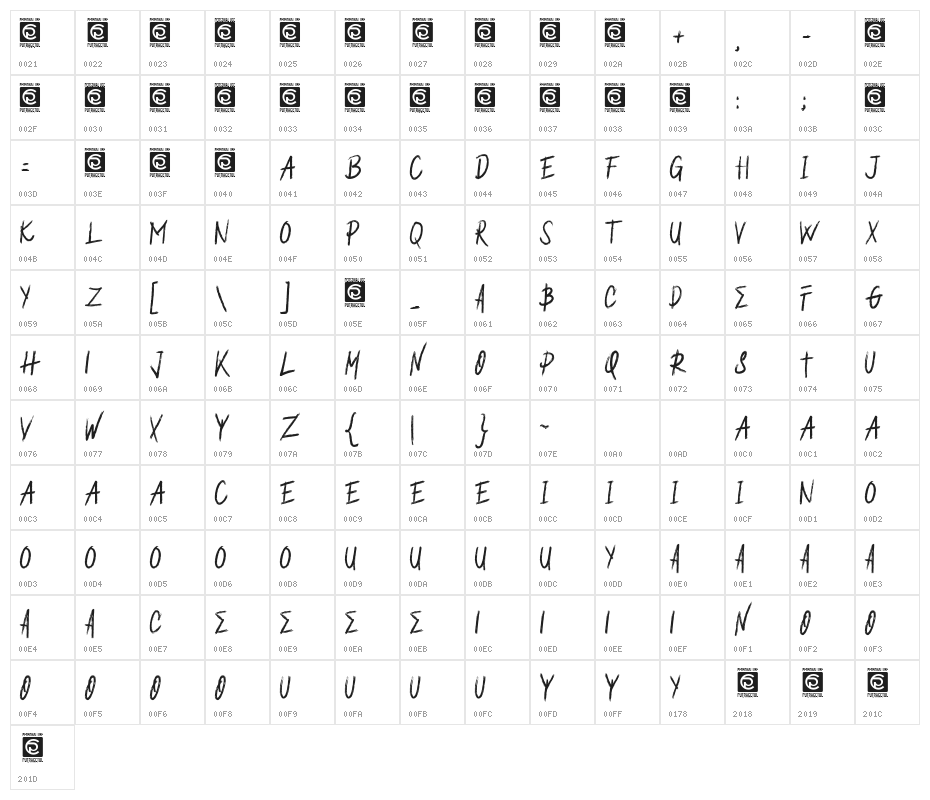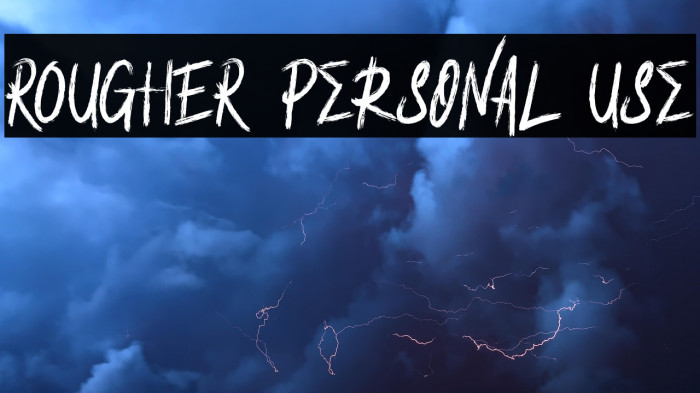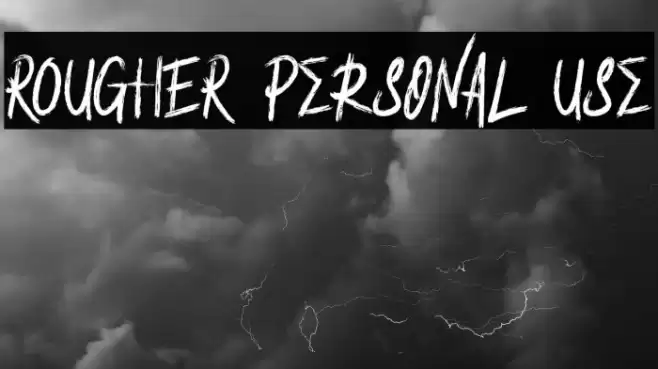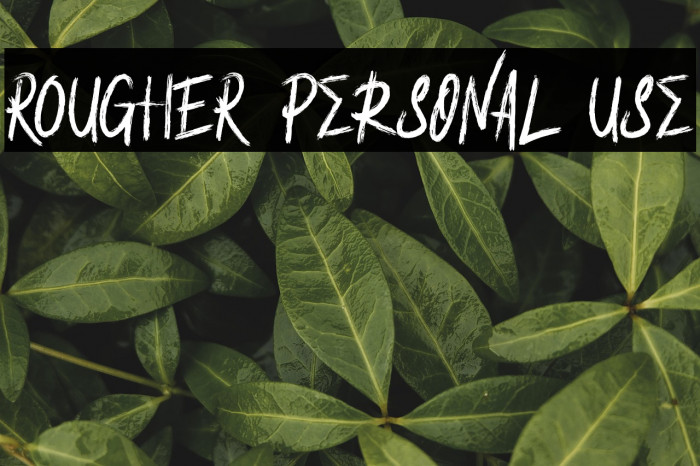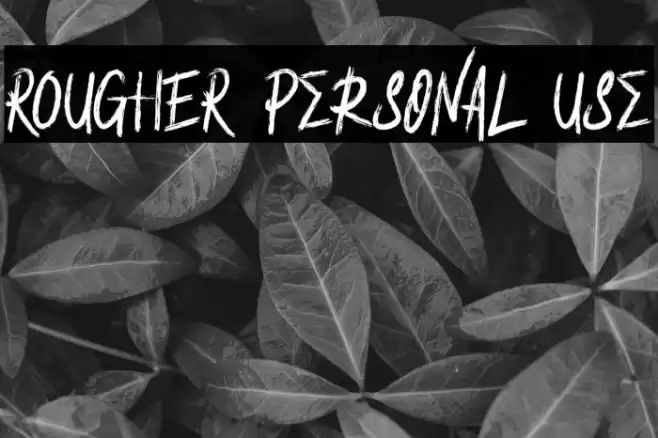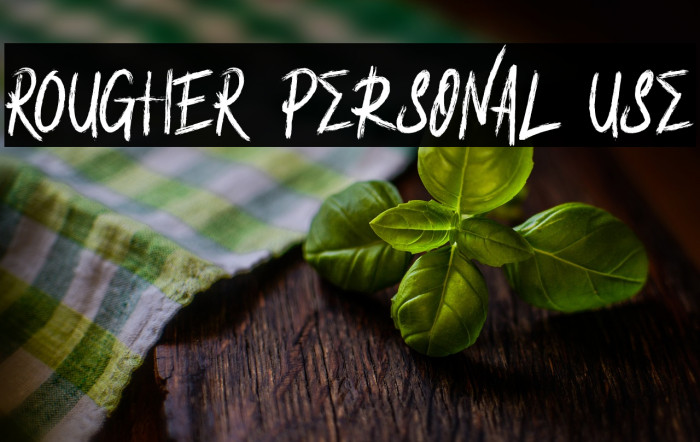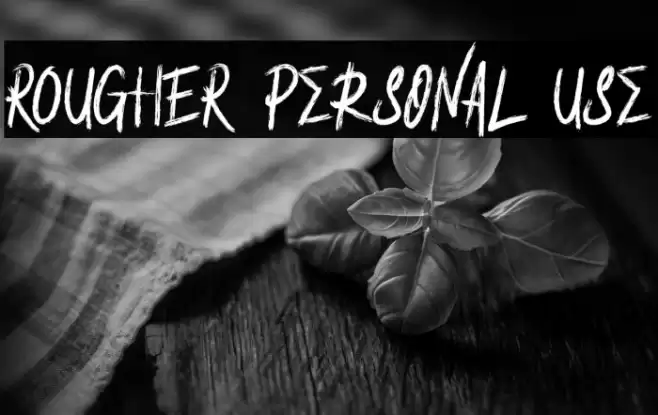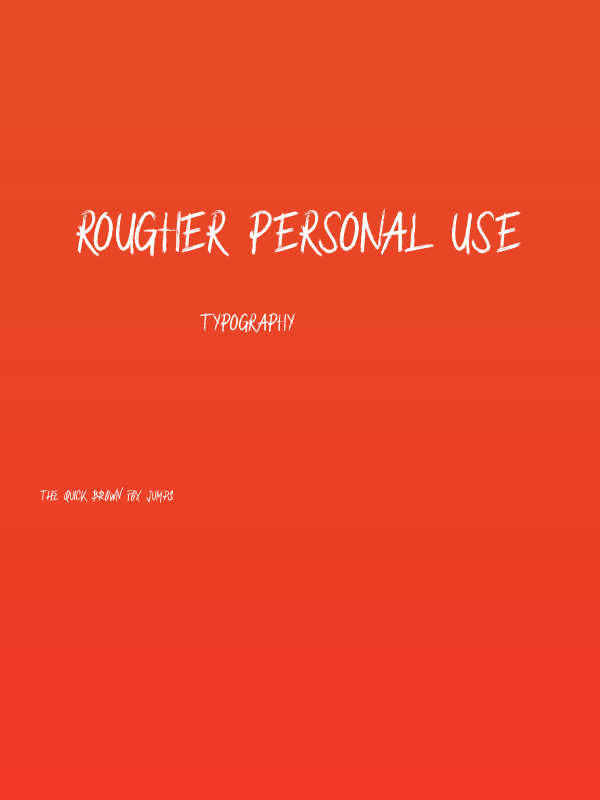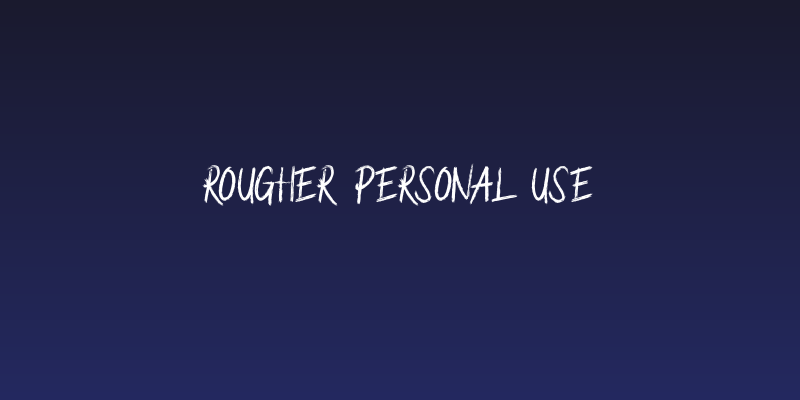
ROUGHER Personal Use Font
ROUGHER Personal Use Description
This font features a rough, hand-drawn style with a brush-like texture that gives it a dynamic and energetic appearance. The letters are slightly irregular, adding to the handcrafted feel. The uppercase and lowercase characters maintain a consistent style, with strokes that vary in thickness, creating a sense of movement and spontaneity. The numerals and special characters follow the same aesthetic, ensuring a cohesive look across all text. This font is ideal for projects that require a bold and artistic touch, such as posters, album covers, or branding materials that aim to convey creativity and individuality.
| Proposed Projects | Ideal for posters, album covers, branding materials, and creative projects. |